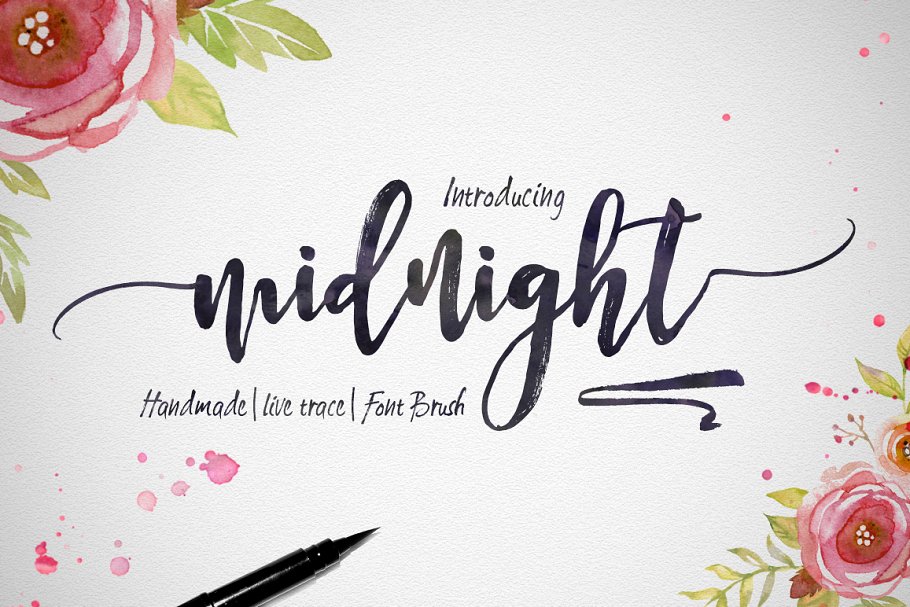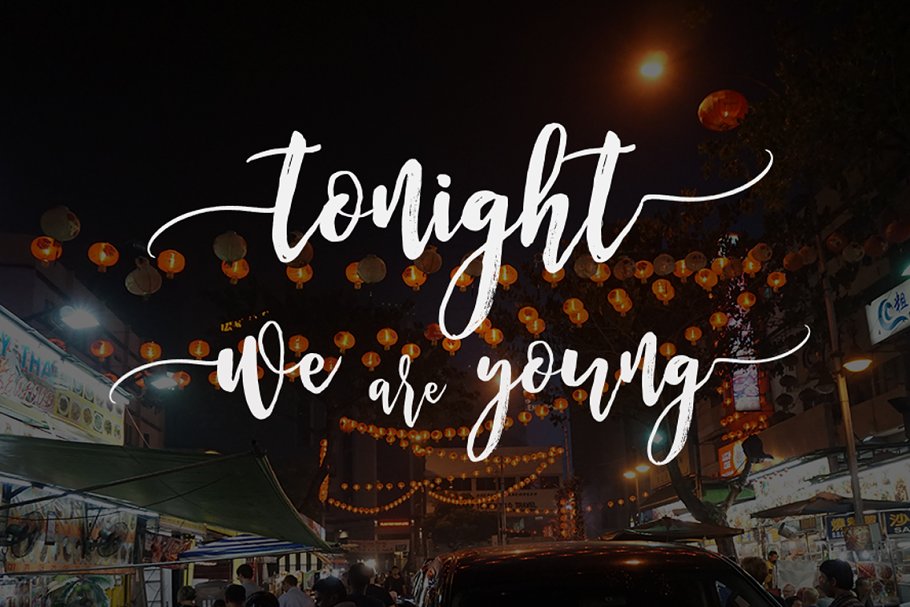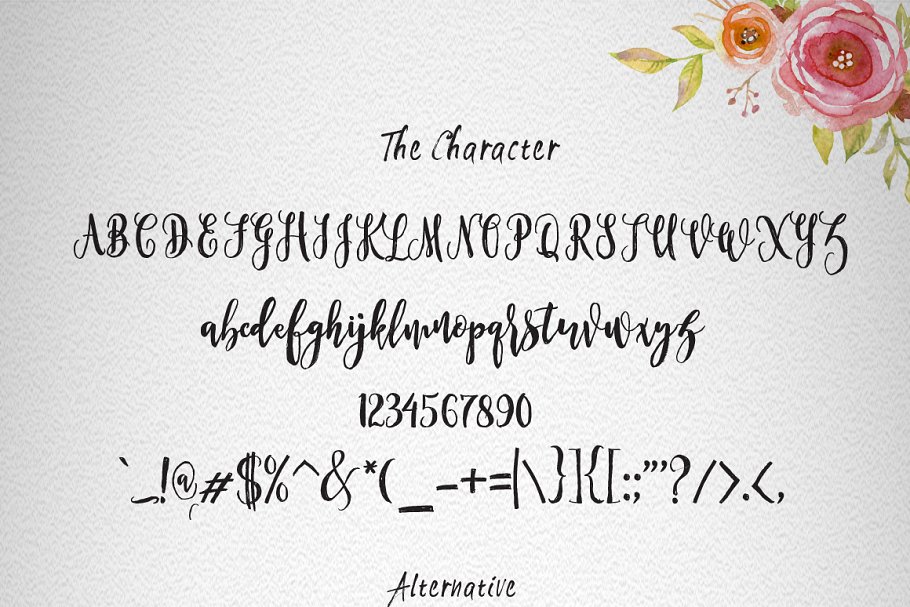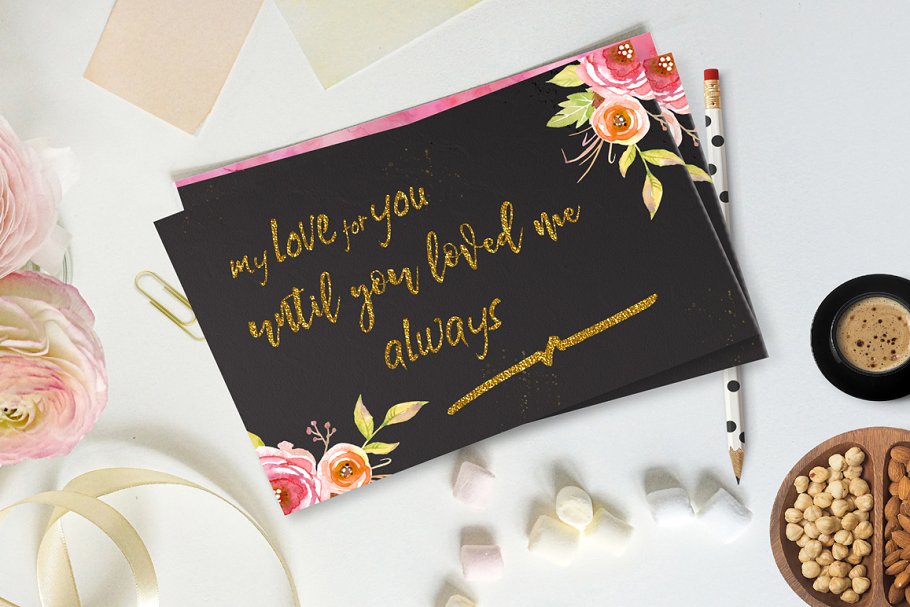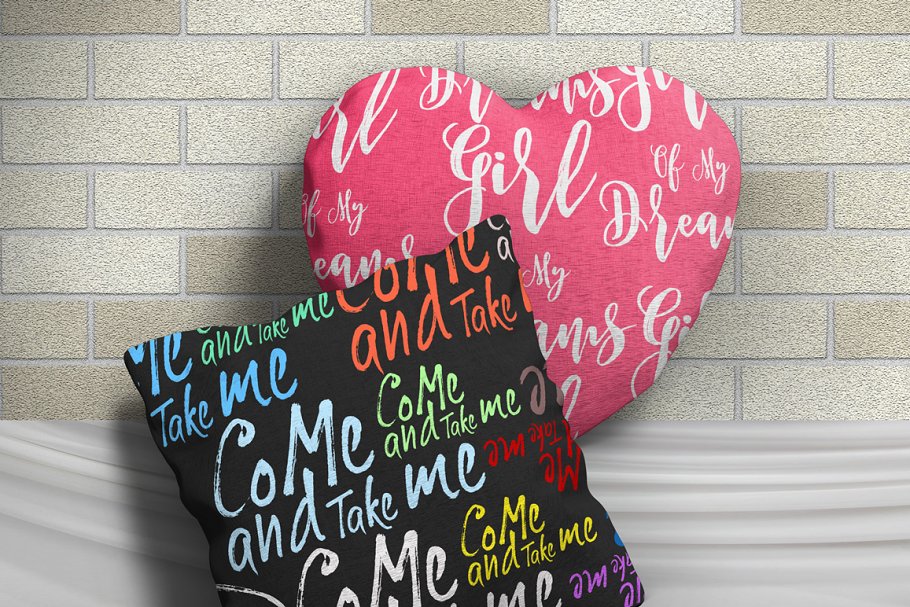
About the Midnight Font
Hello All!!Introducing!!Midnight is the font style handmade dancing and then live trace to have Grungy brush and unique forms of calligraphy, the writing style is very natural, The Features of this fonts is;Standart ligaturesStylistic AlternatesStylistic setsFile font Braveheart Include ;Midnight OTFMidnight TTFBonus font ;SolmetSwashMidnight Have PUA Unicode (Private Use Areas)Programs that support in this font is a Adobe Photo Shop, Adobe Illustrator, Adobe Indesign, Corel Draw and Microsoft Office
Basically, all european languages that are based on latin alphabetCan be used for various purposes, such as headings, logos, wedding invitation, t-shirt, letterhead, signage, lable, news, posters, badges etc, To enable the OpenType Stylistic alternates, you need a program that supports OpenType features such as Adobe Illustrator CS, Adobe Indesign & CorelDraw X6-X7